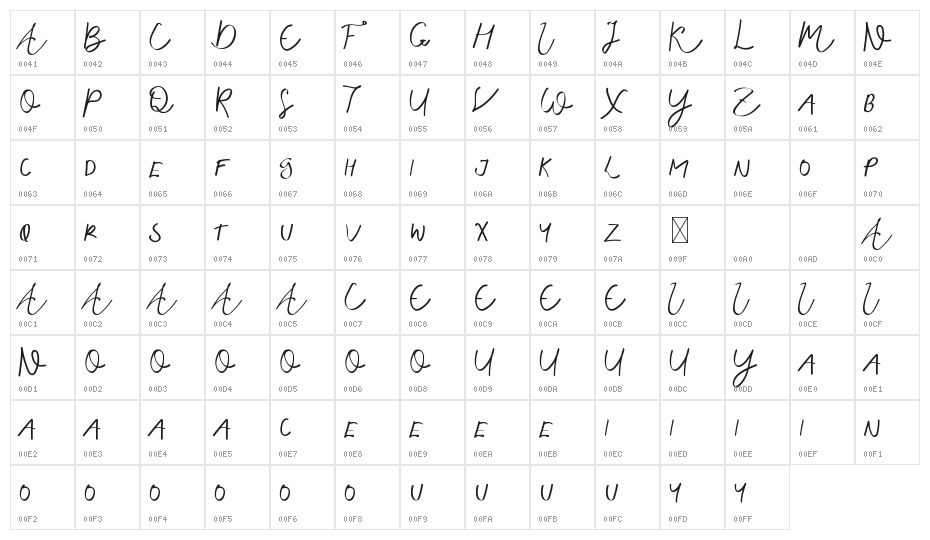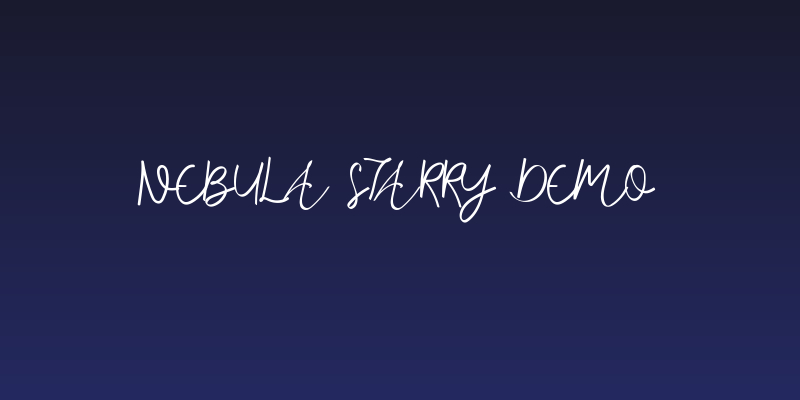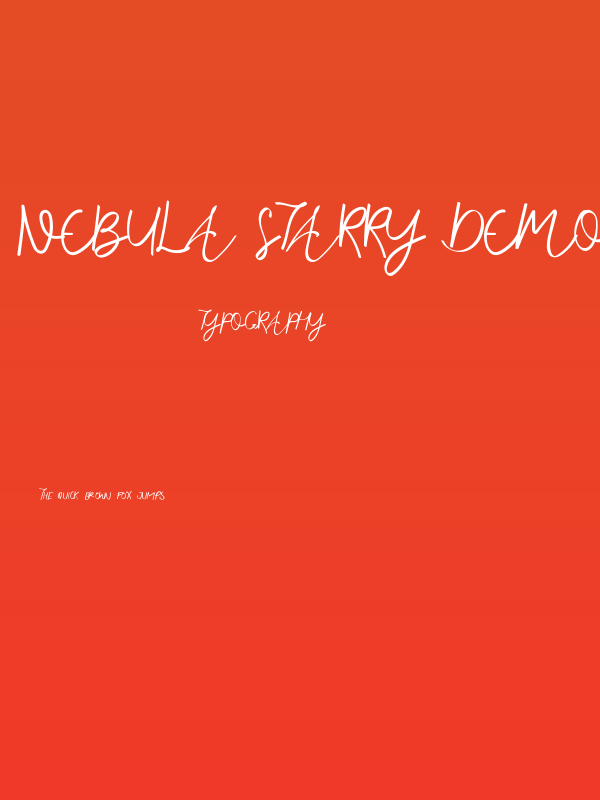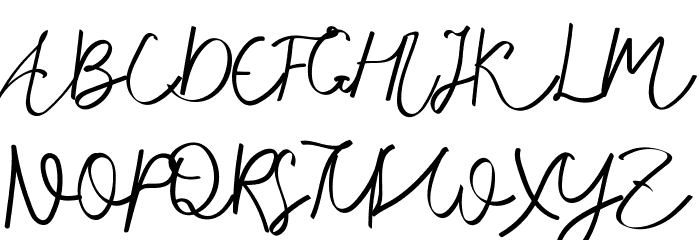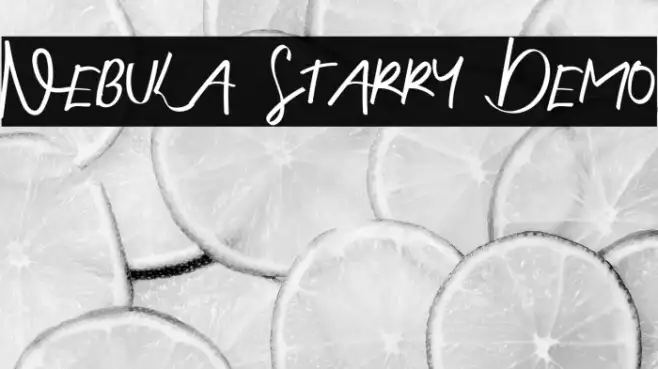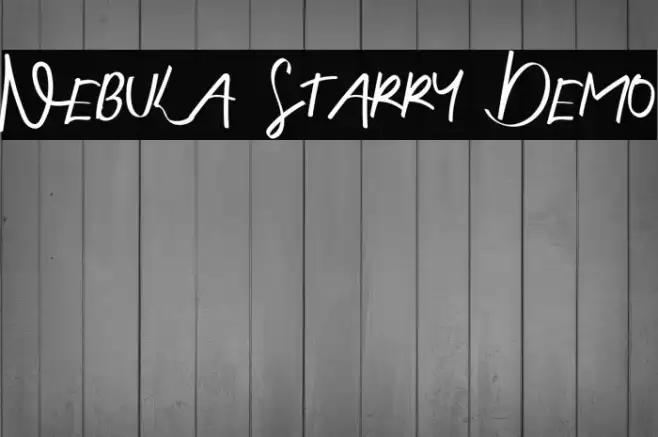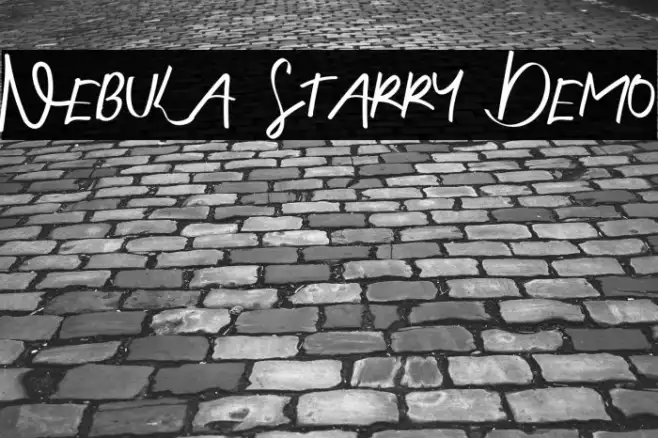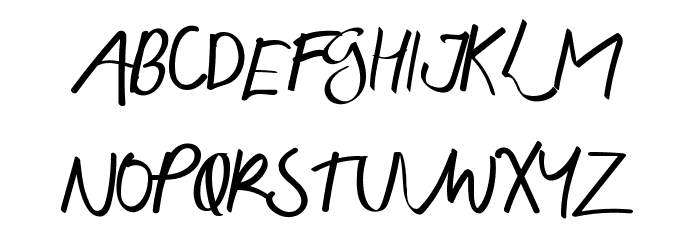
Nebula Starry Demo Font
Nebula Starry Demo Description
This font features a dynamic and expressive handwritten style, characterized by fluid strokes and a lively, energetic appearance. The uppercase letters exhibit a playful yet elegant flow, with varying stroke widths that add a sense of movement and personality. The lowercase letters maintain a consistent style, complementing the uppercase with their own unique flair. The numbers and special characters follow the same aesthetic, ensuring a cohesive look across all elements. This font is perfect for projects that require a personal touch, such as invitations, greeting cards, or branding materials that aim to convey creativity and individuality.